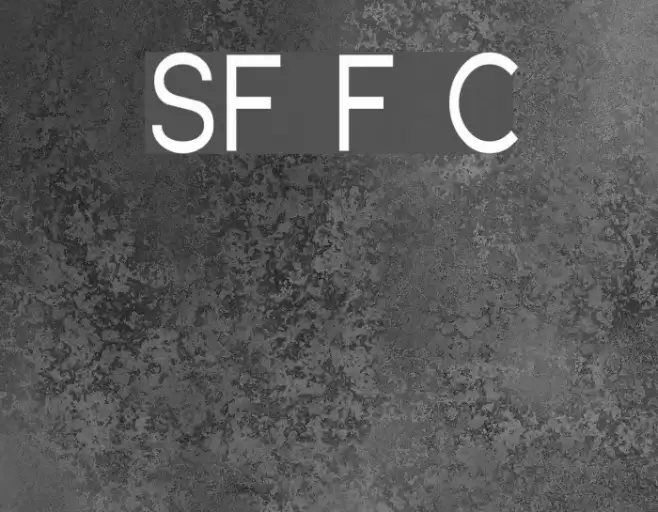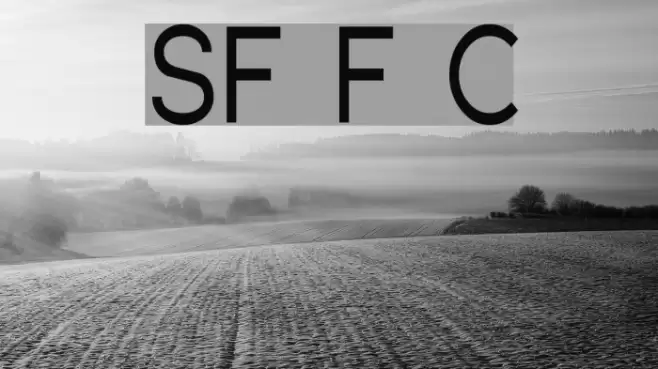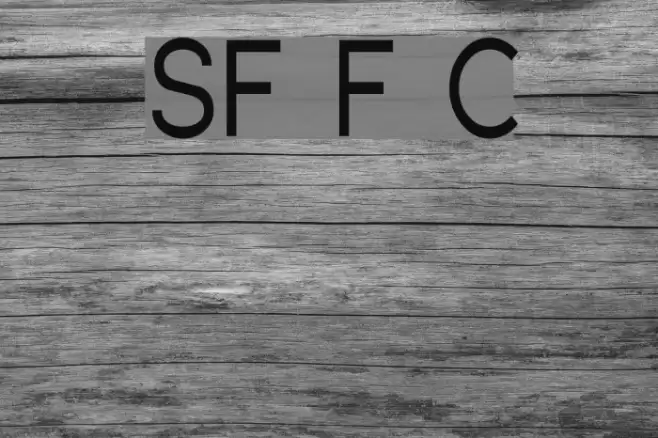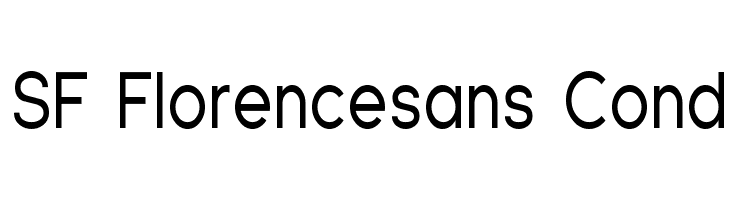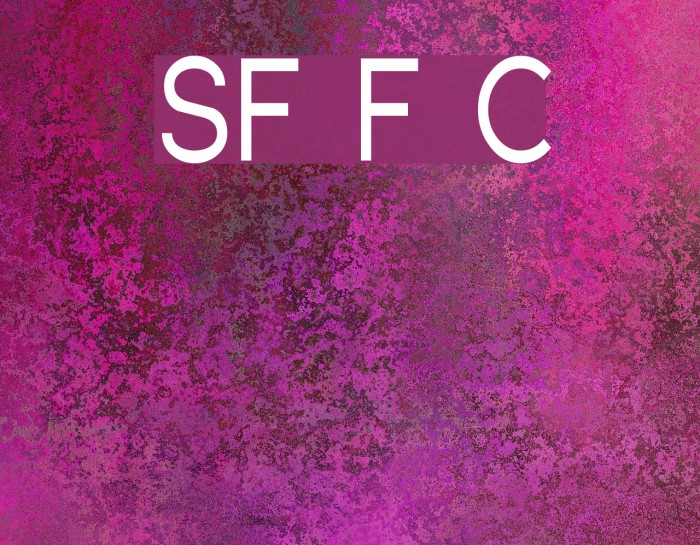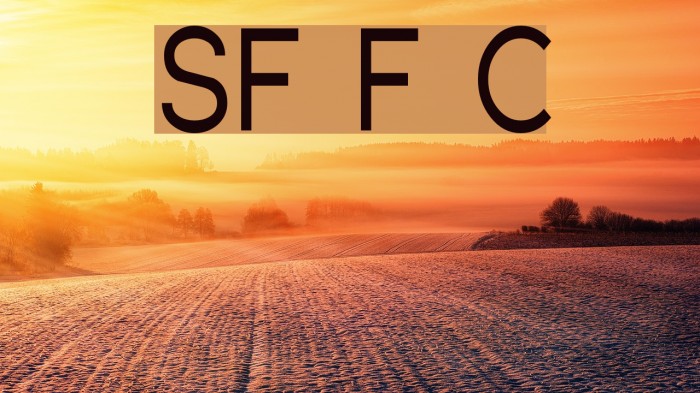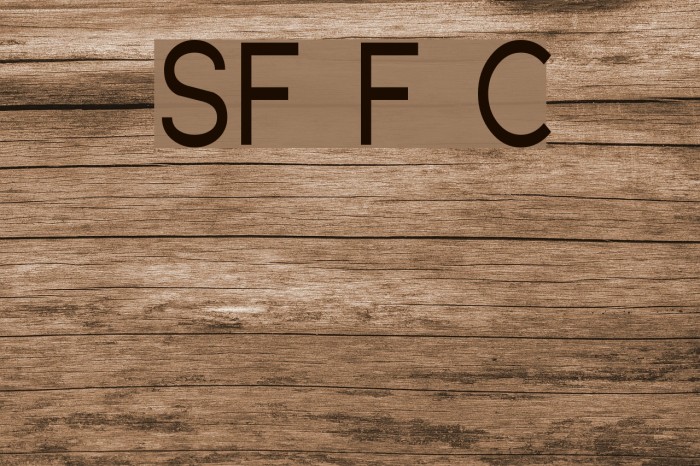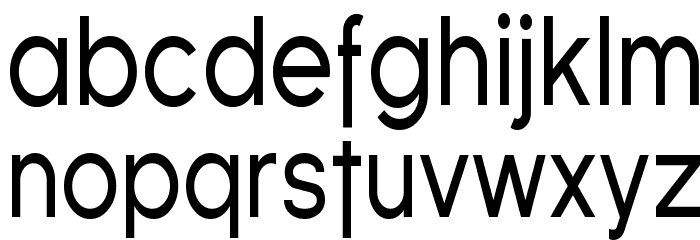
SF Florencesans Cond Font
SF Florencesans Cond Description
This font is a clean and modern sans-serif typeface that features a straightforward and minimalist design. The characters are uniform in width, providing a consistent and harmonious appearance. The uppercase and lowercase letters are well-proportioned, with a slight geometric influence that adds to its contemporary feel. The numerals are clear and easy to read, making them suitable for various applications. The special characters are distinct and maintain the overall aesthetic of the font. Its simplicity and clarity make it versatile for both digital and print media.
A modern, clean sans-serif font with a minimalist design from Uncategorized fonts.